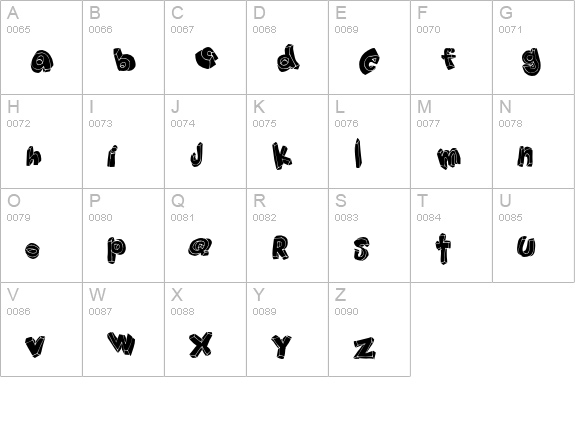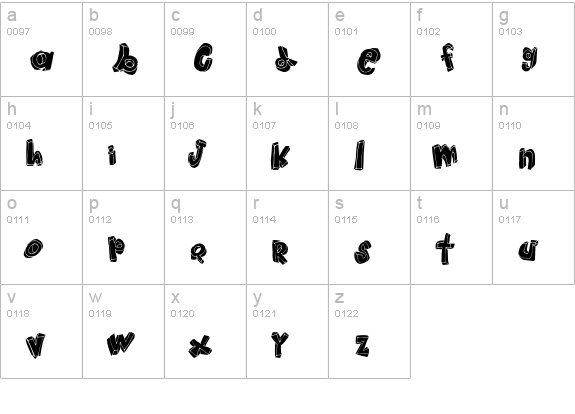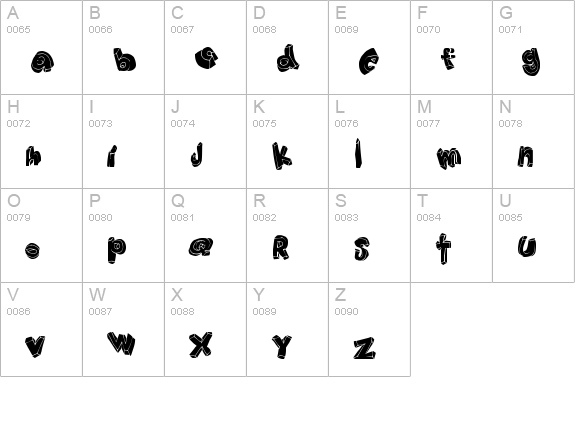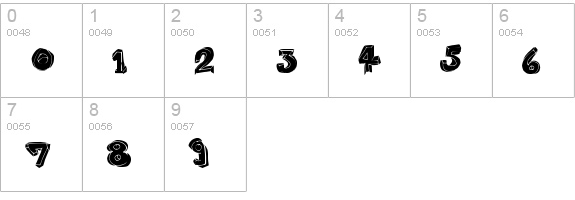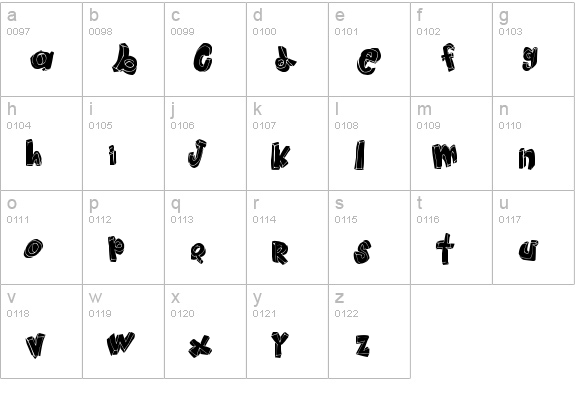
HANGUP font is a unique and stylish typeface that is perfect for making a bold statement in your design projects. With its modern and edgy look, HANGUP font is sure to catch the eye and leave a lasting impression. This versatile font can be used for a variety of purposes, from branding to social media graphics to posters and more. What makes HANGUP font even more appealing is that it is completely free to download at FontsMarket.com. This means that you can access this high-quality font without having to spend a dime. Whether you are a professional designer or just starting out, HANGUP font is a valuable addition to your font collection. Don't miss out on this fantastic opportunity to enhance your creative projects with the bold and striking HANGUP font.